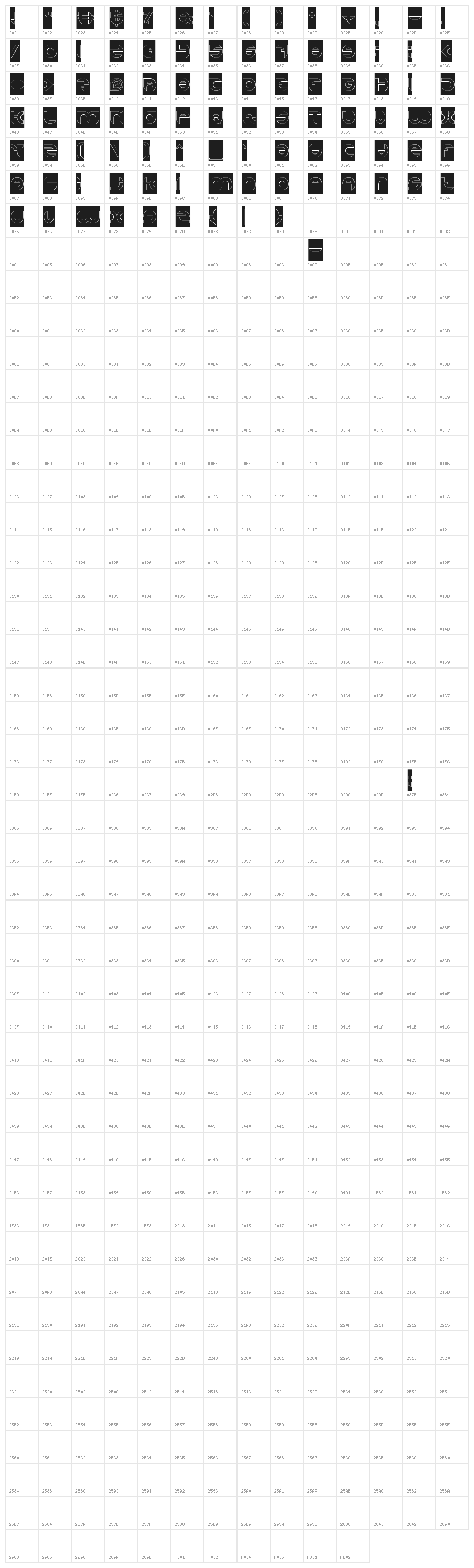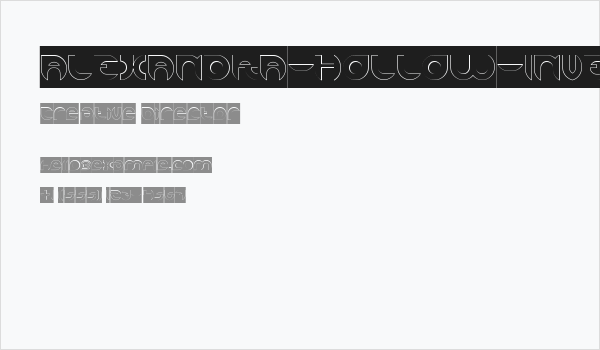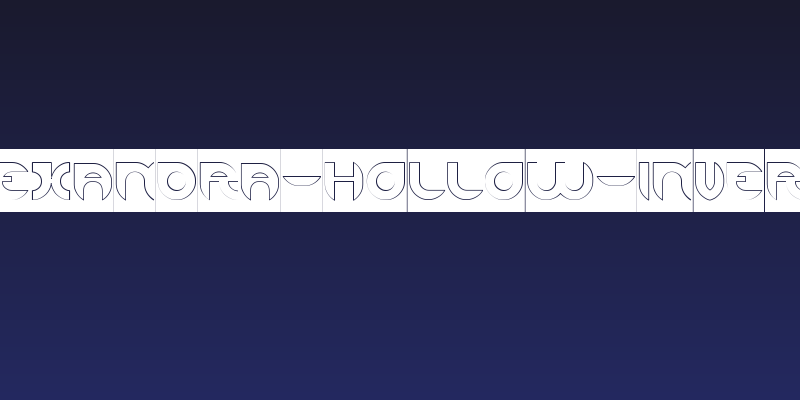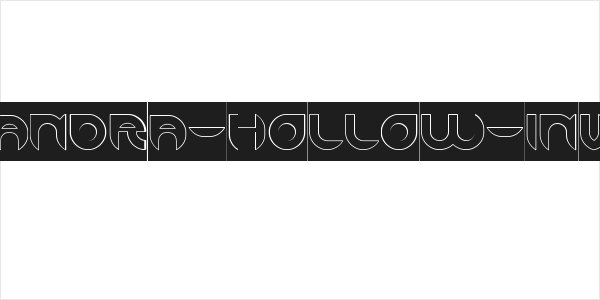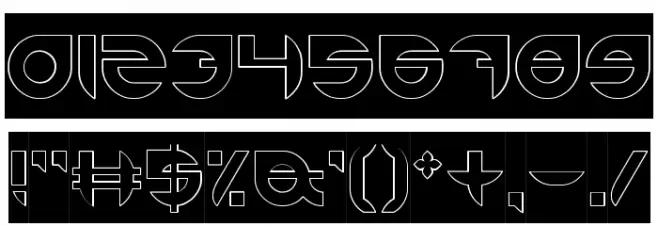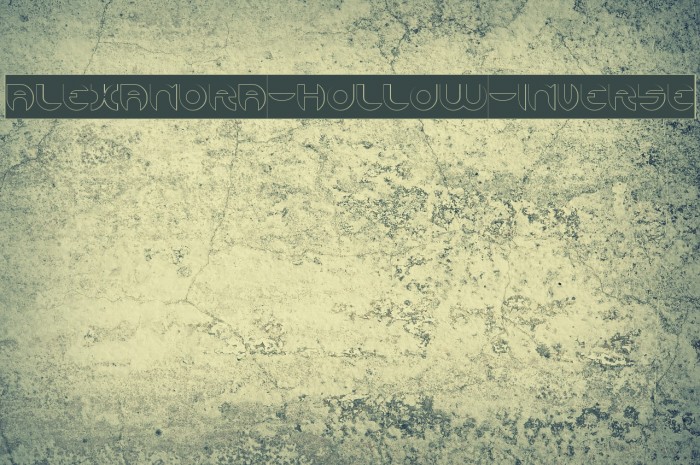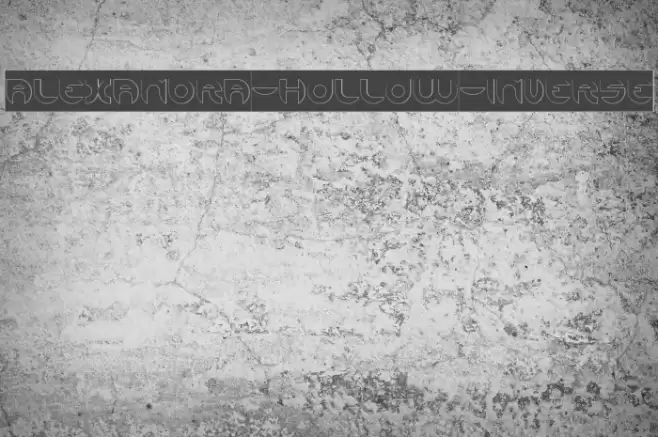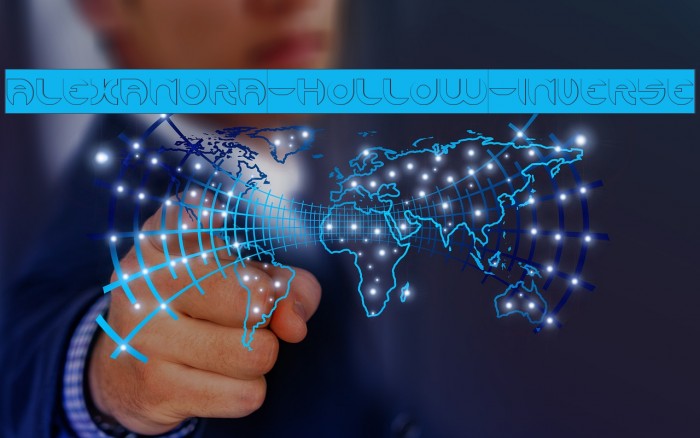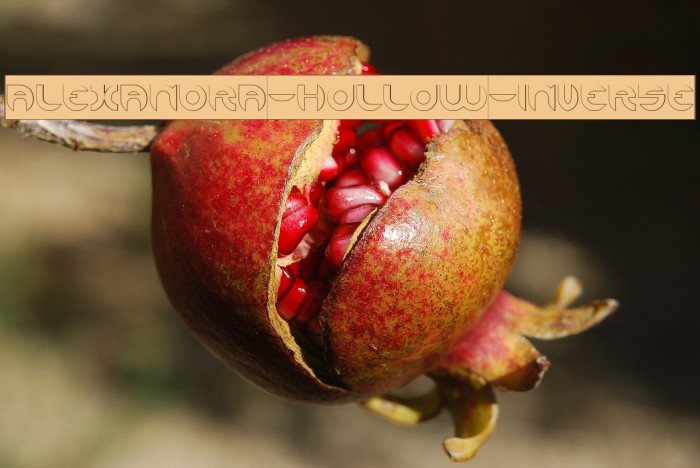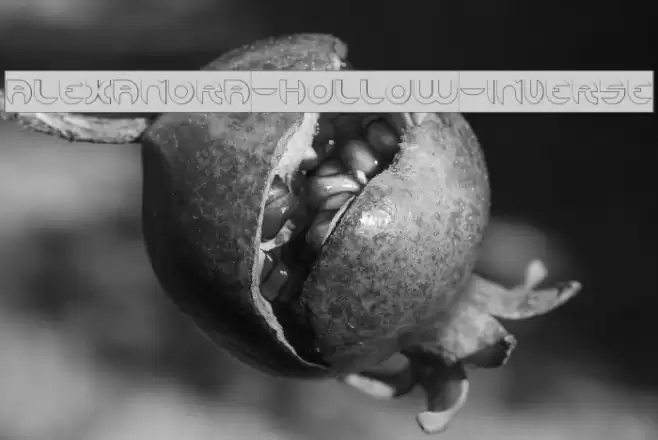
ALEXANDRA-HOLLOW-INVERSE Font
✎ Outline
ALEXANDRA-HOLLOW-INVERSE Description
This font features a unique hollow design with an inverse style, creating a striking visual effect. The characters are outlined with a consistent stroke width, giving them a futuristic and geometric appearance. The uppercase and lowercase letters maintain a uniform style, with rounded edges and sharp angles that enhance the modern aesthetic. The numerals and special characters follow the same design principles, ensuring a cohesive look across all elements. This font is ideal for projects that require a bold and innovative typeface, making it suitable for branding, posters, and digital media.
| Proposed Projects | Ideal for branding, posters, digital media, and any project needing a bold, modern typeface. |